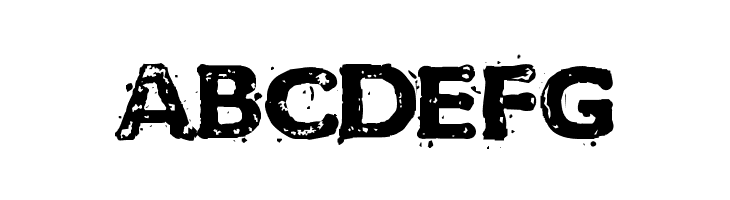
Brasham Stamp Demo Stamp Font
- Font: Brasham Stamp Demo Stamp
( Fonts by Charly Masci - www.mvdgdesign.com )
A bold, distressed font with a grunge, textured appearance.